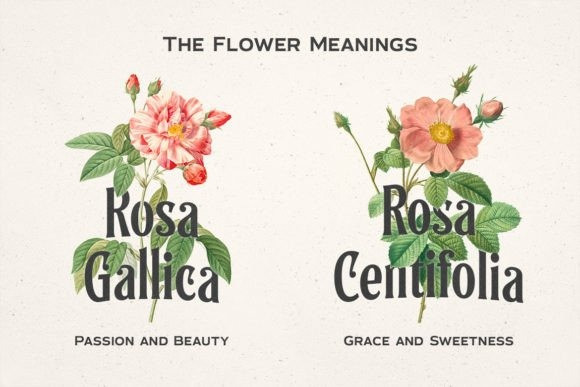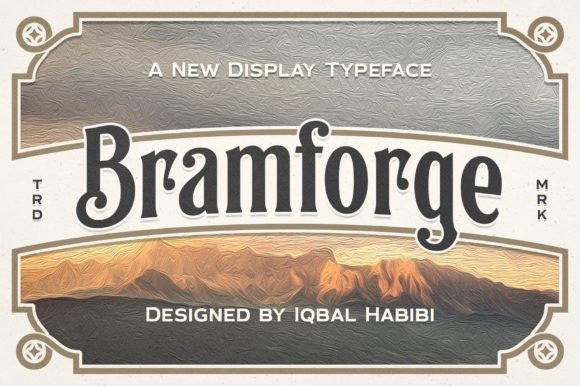
Bramforge Font
Bramforge Font is a display serif typeface based on the lettering design on various vintage catalog cards and labels in the 19th century. Bramforge is perfect for display needs such as headlines, signage, logos, posters, labels, and other graphic design projects.